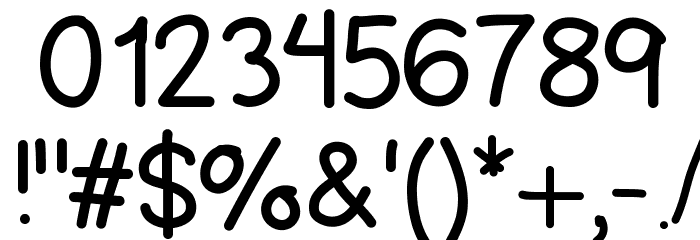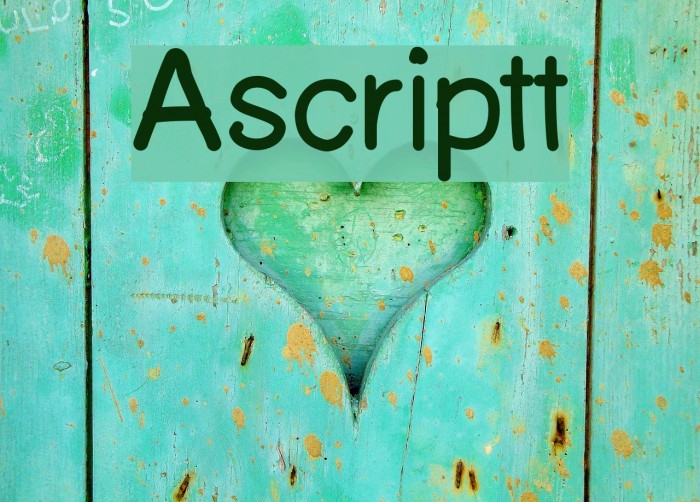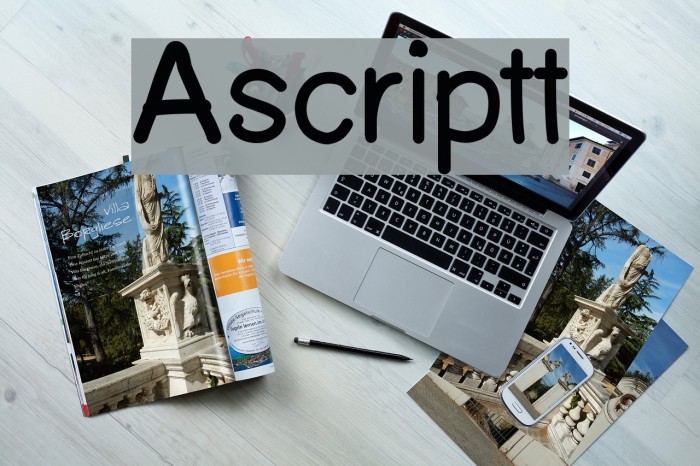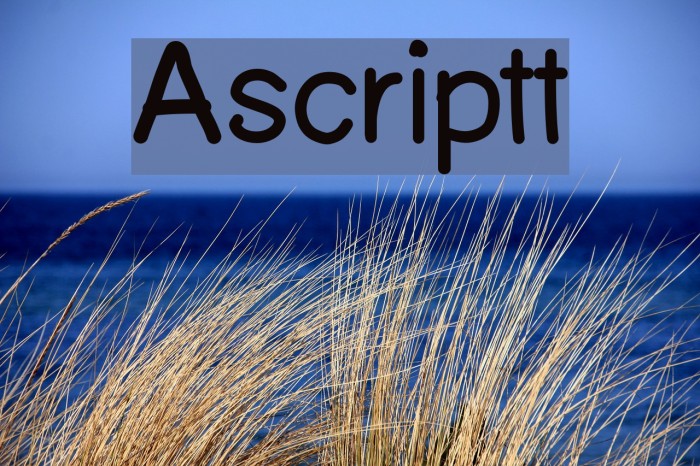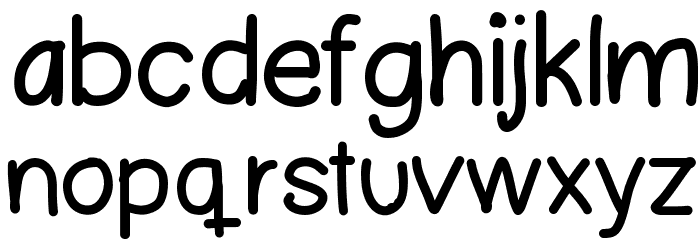
Ascriptt Font
Ascriptt Description
This playful and rounded font features a handwritten style with a friendly and approachable appearance. The letters are bold and slightly irregular, giving a casual and informal feel. The uppercase and lowercase characters maintain a consistent flow, with smooth curves and a slightly uneven baseline that adds to its charm. The numerals and special characters are designed to match the overall aesthetic, making it suitable for a variety of creative projects. Its legibility and unique style make it ideal for designs that require a personal touch.
A playful, handwritten font with rounded, bold characters and a casual style from Uncategorized fonts.
- Proposed Projects: Ideal for children's books, greeting cards, playful branding, and informal invitations.
- Overall Style: Casual
- Use Case: Headlines, Logos, Invitations